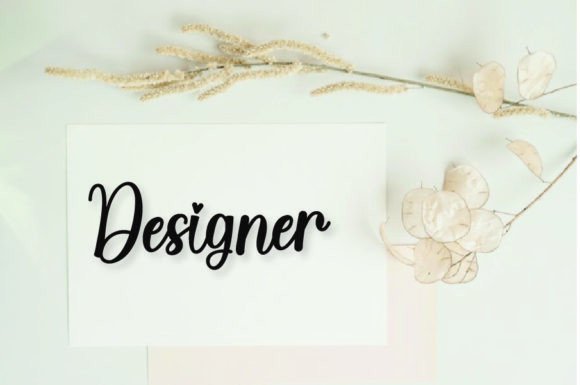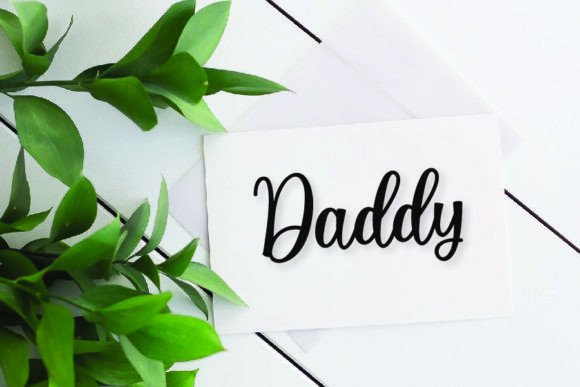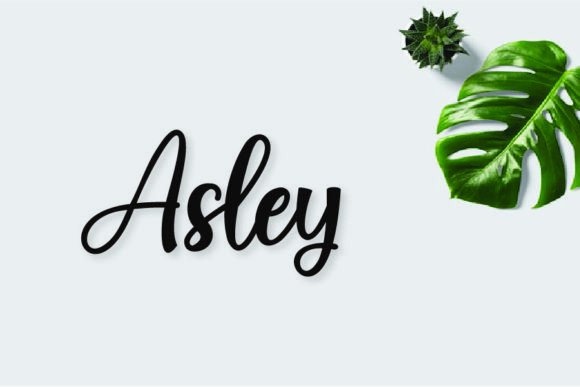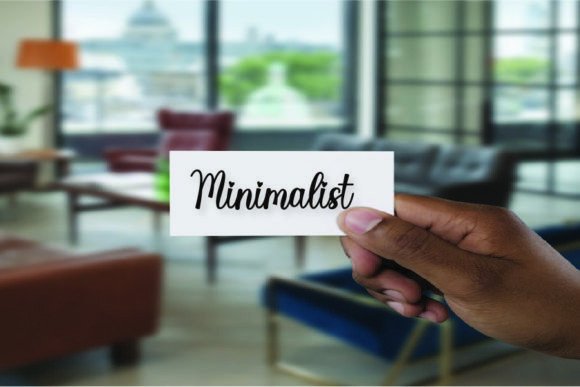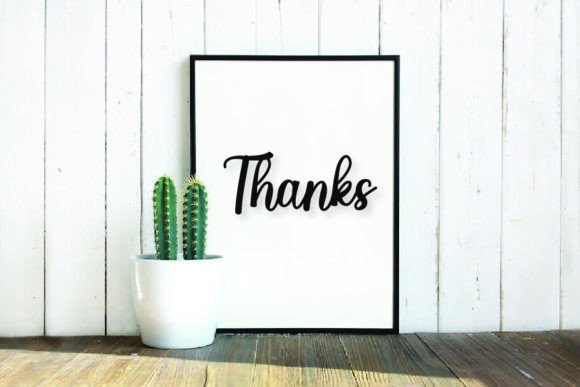
The Birth of a New Favorite: Babyist Font
Have you ever been brainstorming ideas for a design project, and suddenly, a font catches your eye? That’s exactly what happened to me when I stumbled upon Babyist Font. Its charming, handwritten style instantly drew me in, and I couldn’t wait to explore its possibilities.
Babyist Font is a beautiful, modern script that exudes a sense of freshness and casual elegance. Its fluid strokes and organic lines make it perfect for a wide range of design projects, from branding and invitations to social media graphics. With Babyist Font, designers can add a touch of warmth and personality to their work, making it a valuable addition to any creative arsenal.
Babyist Font Key Features
- Font Family: Babyist is a unique, hand-drawn font designed for baby-related content, such as nursery decor, baby clothes, and children’s books.
- Character Count: The font includes a wide range of characters, including uppercase and lowercase letters, numbers, and punctuation marks.
- Unique Characteristics: The font’s hand-drawn style and soft, rounded edges give it a warm and endearing feel, perfect for baby-related designs.
Designer Review: Babyist Font
Overall, I have mixed feelings about the Babyist Font. While it’s a cute and playful font, it falls short in some areas. ✨ One thing that works well is its legibility, especially in larger font sizes. The font is clear and easy to read, making it suitable for headings and titles.
- ✨ Cuteness factor: The font has a unique, childlike quality that can be appealing for certain projects.
- ✨ Legibility: As mentioned, the font is clear and easy to read, especially in larger sizes.
- ✨ Customizability: The font offers a range of weights and styles, allowing for some customization options.
However, there are some limitations to consider. ⚠️ One major issue is the font’s lack of sophistication. It’s not suitable for professional or formal projects, and it may come across as too childish or immature.
- ⚠️ Lack of sophistication: The font’s playful nature may not be suitable for all projects, especially those requiring a more formal tone.
- ⚠️ Limited scalability: The font may not scale well in smaller sizes, losing some of its clarity and readability.
- ⚠️ Limited character set: The font’s character set is relatively limited, which may cause issues for certain languages or special characters.
Overall, I’d say the Babyist Font is a decent choice for casual or creative projects, but it’s not a top pick for professional or formal work. It’s a cute and playful font that can add some personality to your designs, but it’s not without its limitations.
Getting the Most Out of Babyist Font
Here are some tips for getting the most out of Babyist Font:
- Use Babyist Font for designs that require a playful and whimsical touch.
- Combine Babyist Font with other fonts to create a unique and eye-catching design.
- Experiment with different font sizes and styles to add emphasis and visual interest to your design.
Babyist Font is commonly used for:
- Create a custom title page with Babyist Font, highlighting the baby’s name and birth date.
- Use Babyist Font for captions and quotes throughout the book, adding a touch of whimsy and playfulness.
- Pair Babyist Font with watercolor illustrations or hand-drawn graphics to create a dreamy, ethereal feel.
- Use bold, bright colors to balance out the delicate, cursive lines of Babyist Font.
- Create a custom invitation with Babyist Font, featuring the baby’s name and shower details.
- Use Babyist Font for the RSVP card and thank-you note, adding a personal touch.
- Pair Babyist Font with soft pastel colors and floral patterns to create a sweet, feminine look.